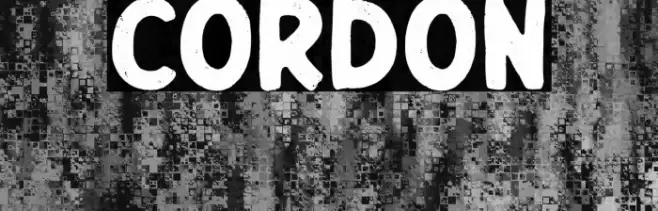
CORDON Font
CORDON Description
This font features a bold and playful design with rounded edges and a slightly irregular form, giving it a hand-drawn appearance. The characters are thick and substantial, providing a strong visual impact. The uppercase and lowercase letters maintain a consistent style, with a whimsical and friendly feel. The numbers and special characters are equally bold, ensuring readability and uniformity across all elements. This font's unique style makes it stand out, perfect for projects that require a touch of creativity and fun.
A bold, playful font with rounded, hand-drawn characters from Cartoon fonts.
- Proposed Projects: Ideal for children's books, playful branding, posters, and creative design projects.
- Overall Style: Playful, Creative
- Use Case: Headlines, Posters, Branding